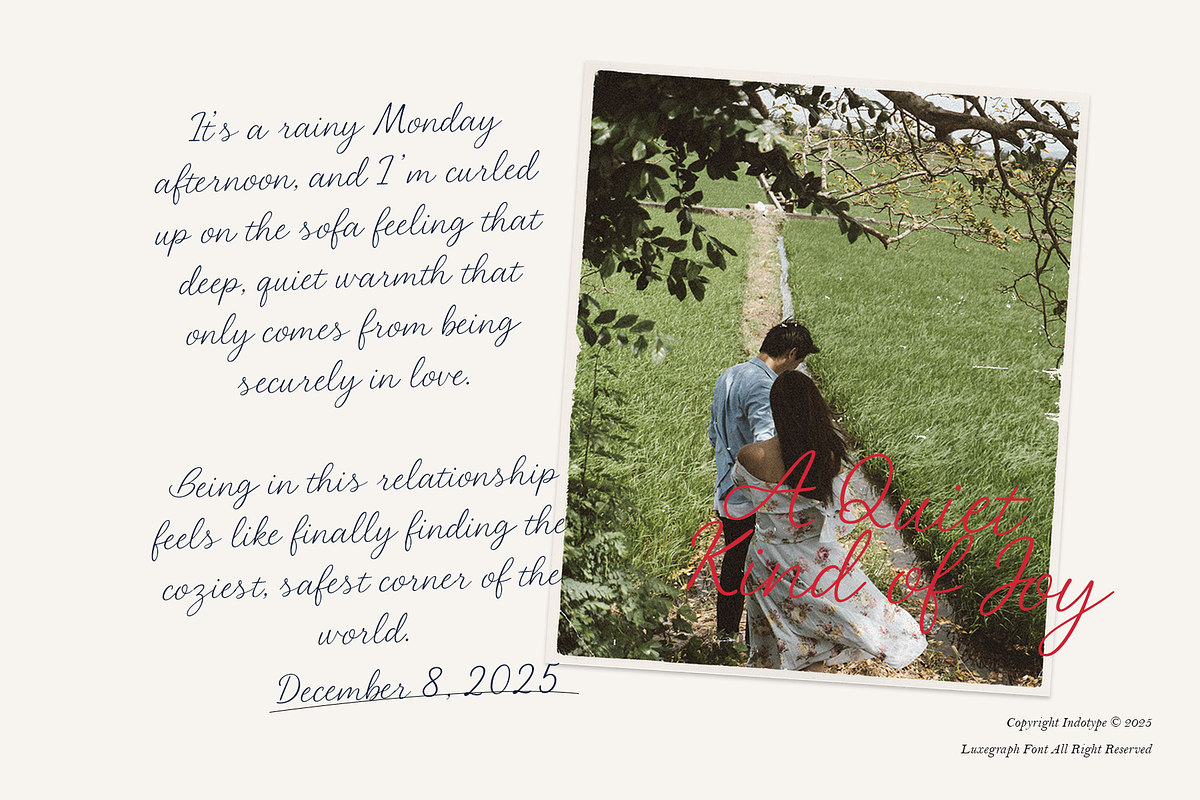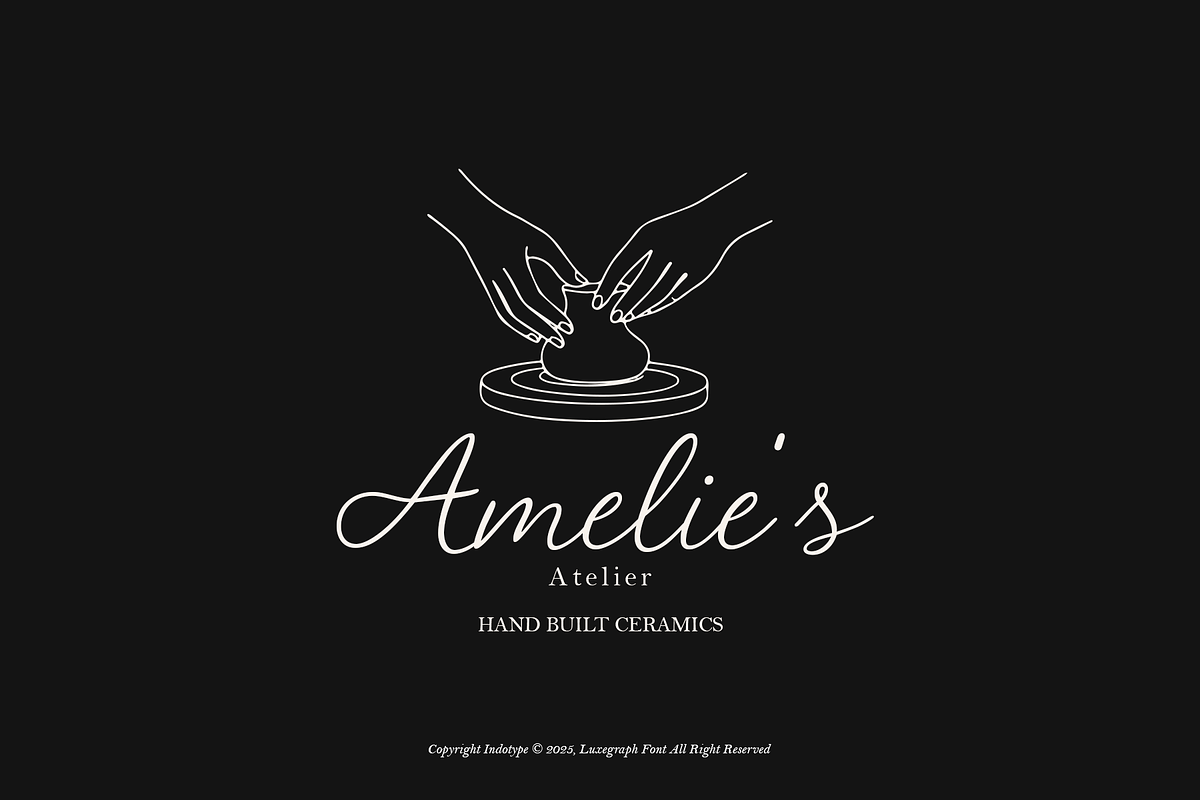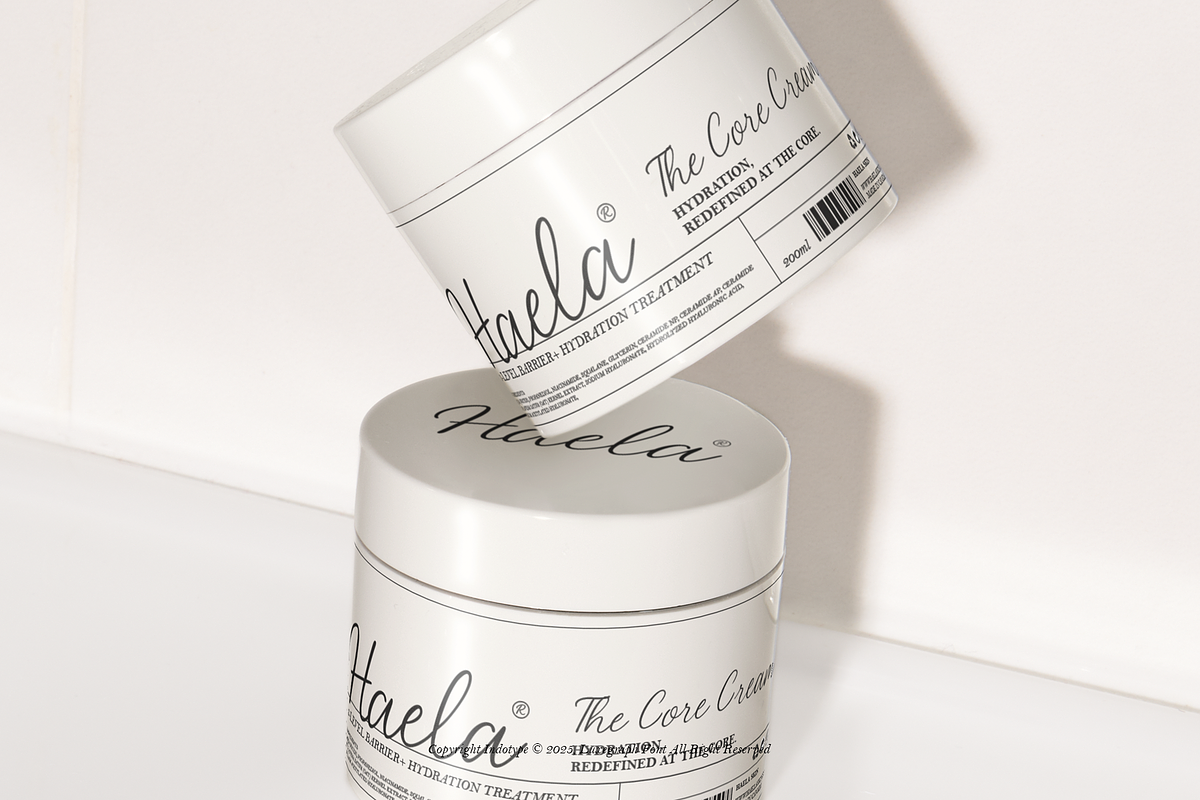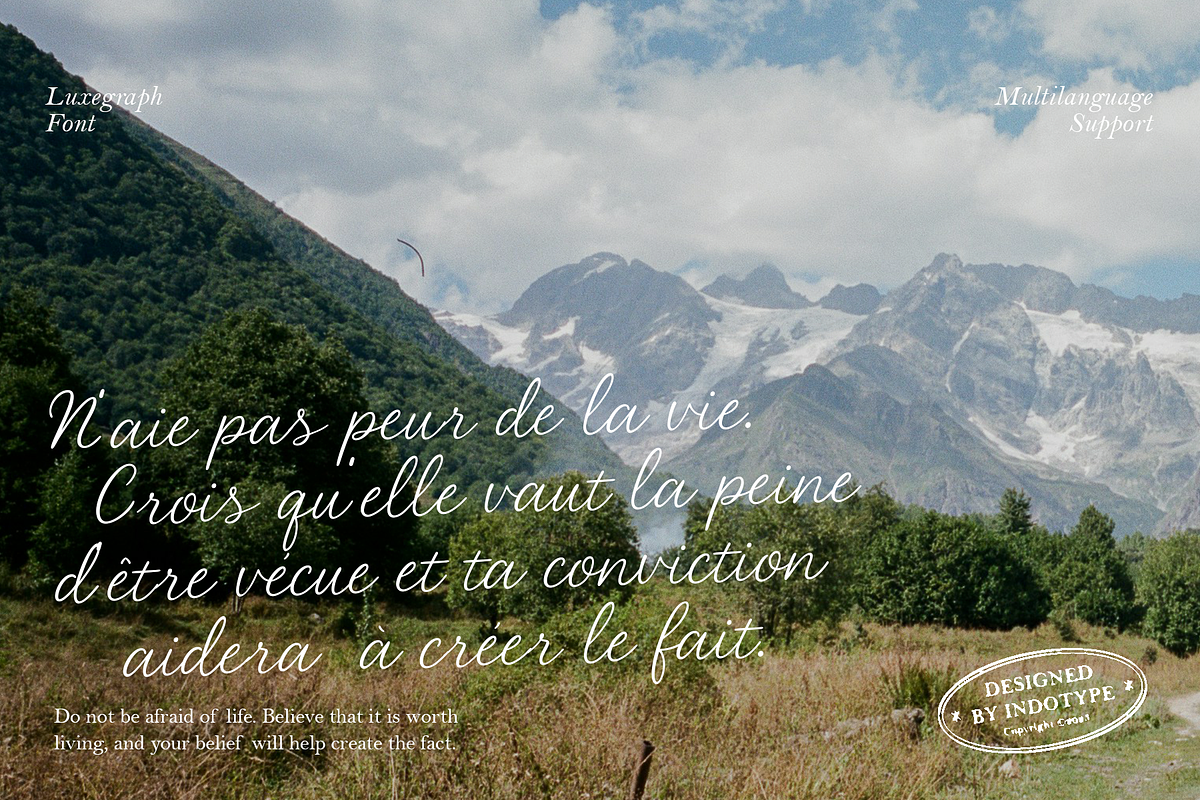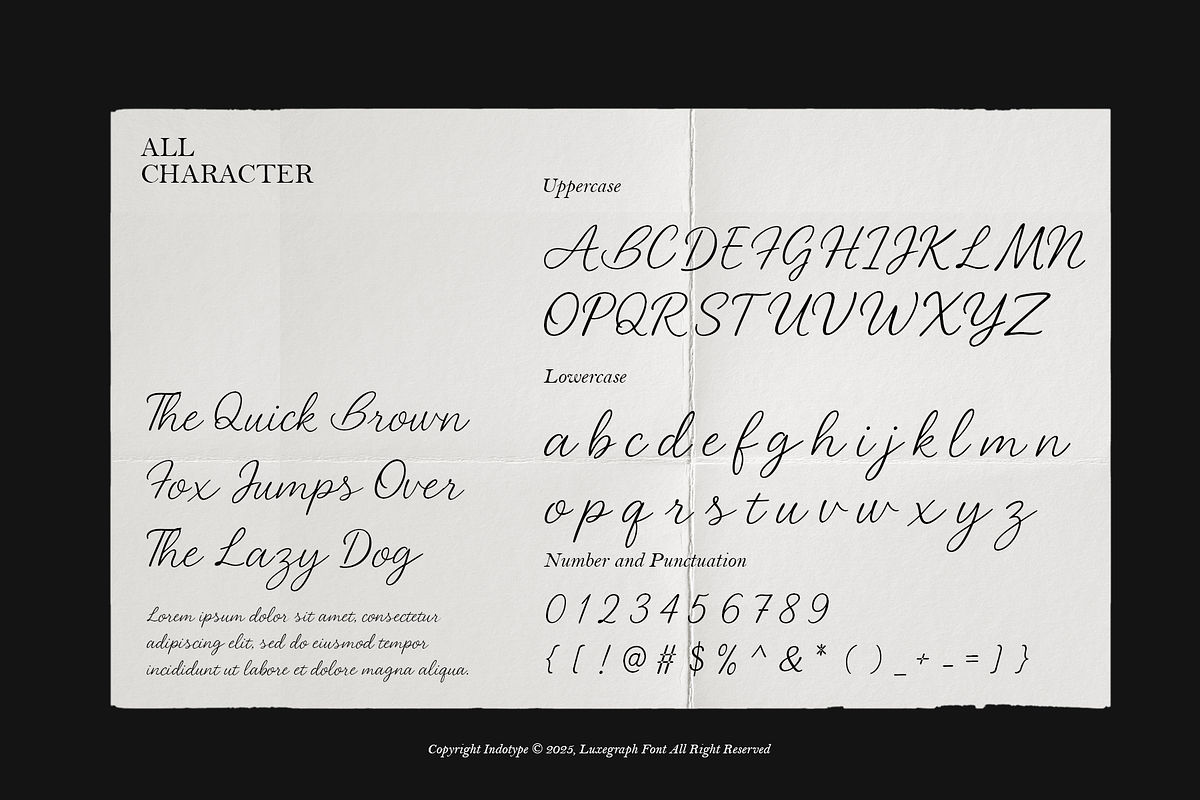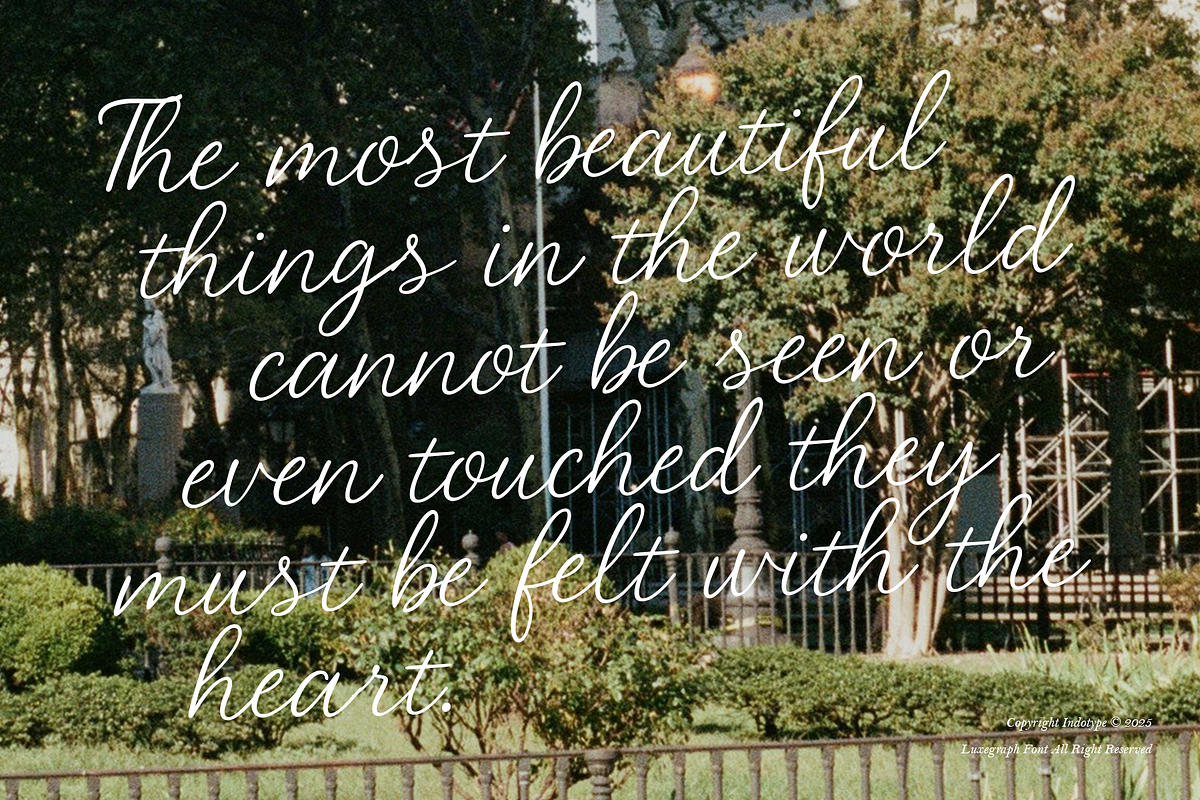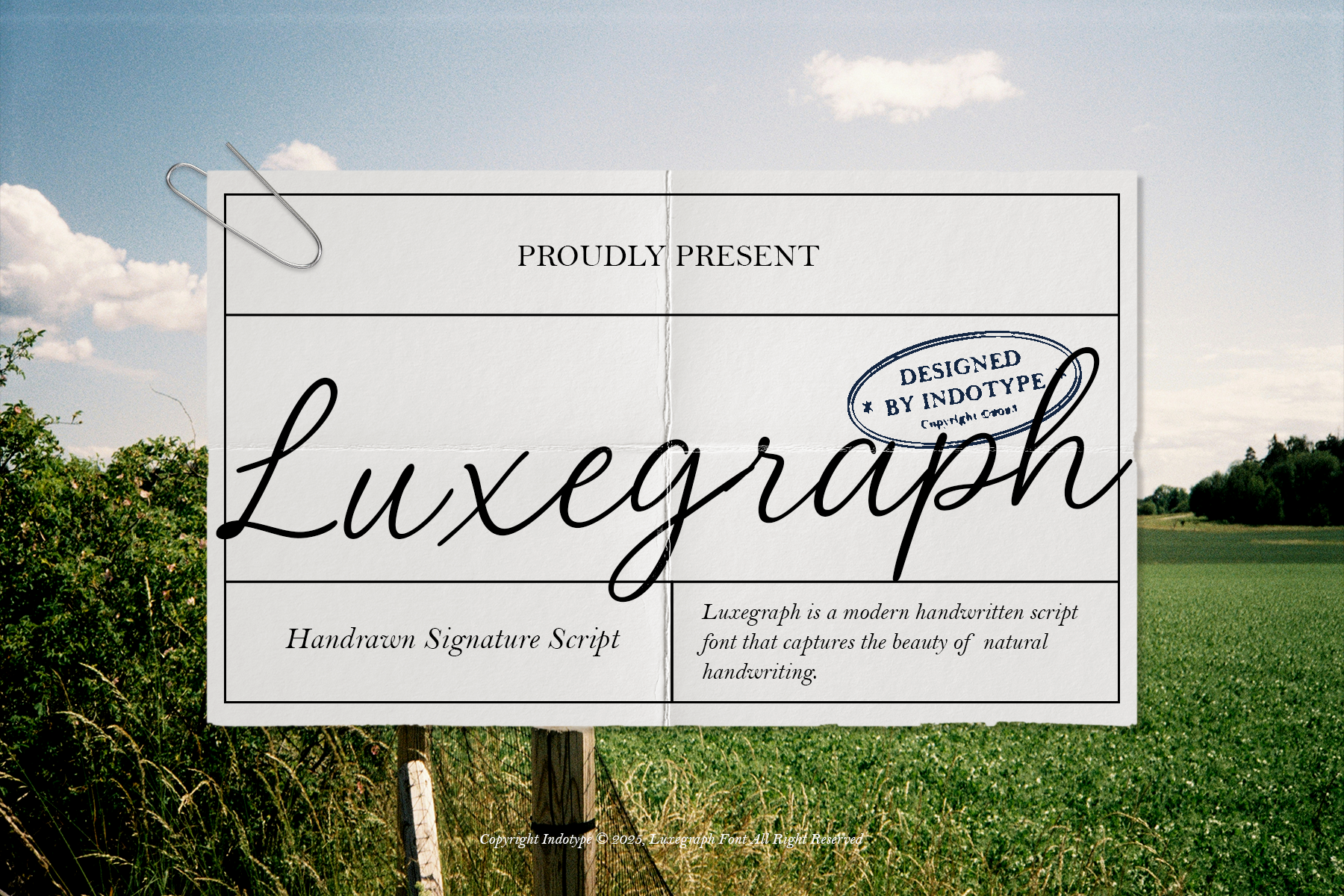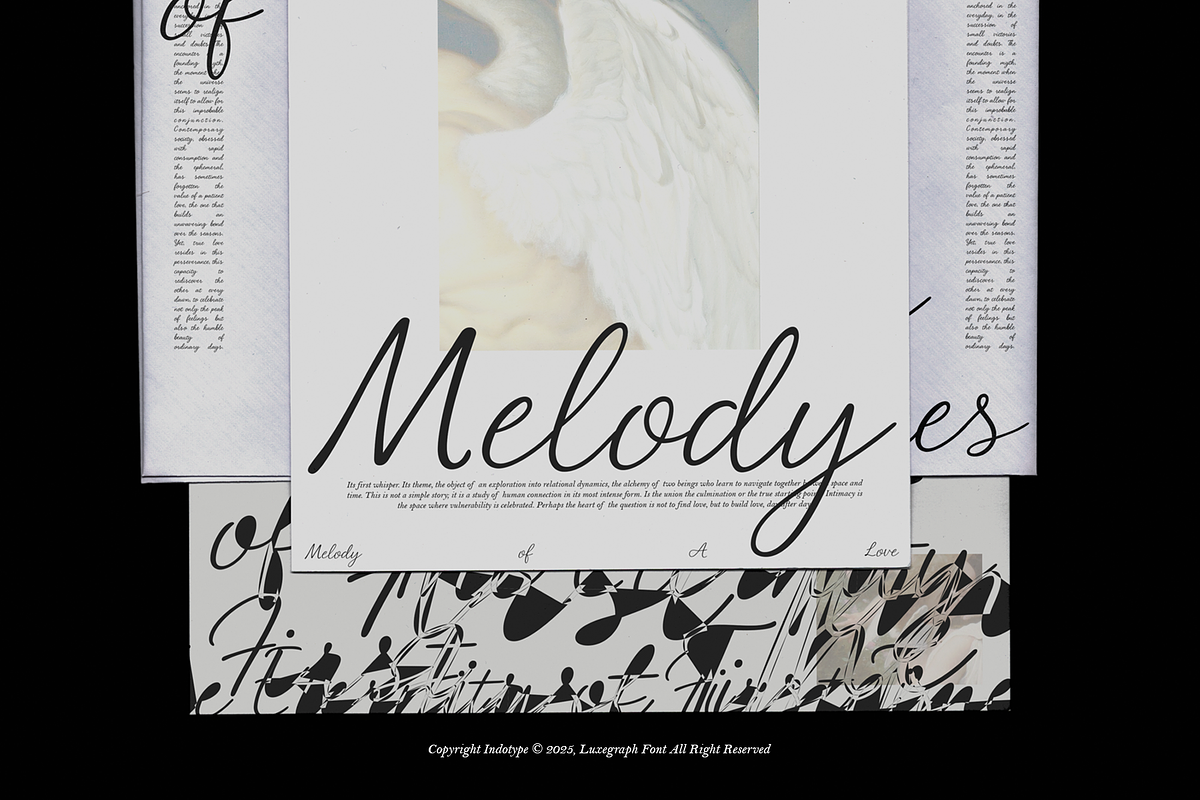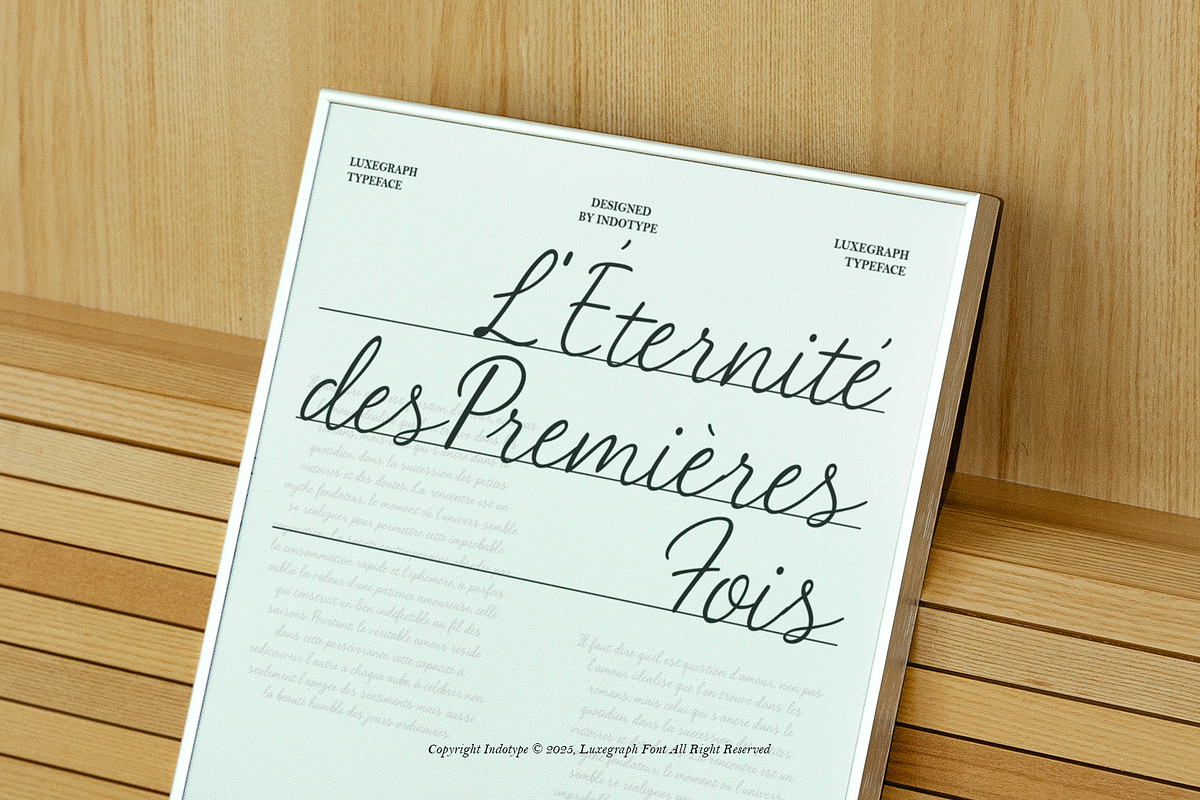
Luxegraph - Handrawn Signature Font
Luxegraph is an elegant and fluid handwritten script font that captures the effortless beauty of a personal signature. Designed with natural variations, graceful connections, and authentic stroke textures, it mimics the intimate feel of pen-on-paper, adding a touch of human sophistication to any design. This modern script strikes the perfect balance between casual charm and refined elegance, making it feel both personal and premium. Ideal for branding that values authenticity and a human touch, Luxegraph elevates logos, product packaging, social media quotes, wedding stationery, and personal projects. Its organic flow and carefully crafted letterforms ensure a look that is polished yet relatable, sophisticated yet approachable. Bring a signature level of style to your work with Luxegraph—the art of the personal touch, digitized.
- Ideal for: Signature Logos, Luxury Product Packaging, Wedding Invitations, Social Media Graphics, Brand Quotes, Personal Branding.
- Classification: Script, Handwritten, Signature, Display.
- Attributes: Elegant, Fluid, Authentic, Personal, Sophisticated, Natural, Modern.